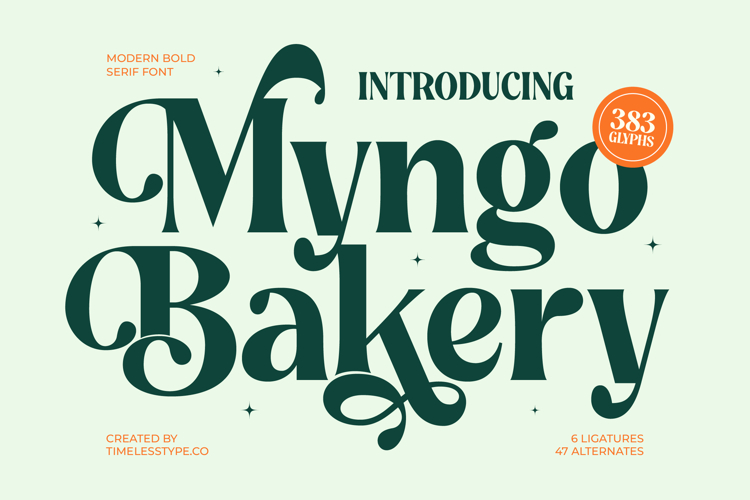
Myngo Bakery - Modern Bold Serif Font
Discover the definitive statement in modern typography with Font Myngo Bakery - Modern Bold Serif Font Serif Display, a typeface crafted to command attention and convey timeless elegance. This exquisite font blends classic serif structures with a contemporary, bold presence, offering a distinctive aesthetic that is both luxurious and approachable. Its high-contrast serif design ensures immediate visual distinction, making it an unparalleled choice for projects demanding an elevated touch.
Unleash creative potential with the rich feature set of Font Myngo Bakery - Modern Bold Serif Font Serif Display, including 383 glyphs, 6 unique ligatures, and 47 expressive alternates. These extensive OpenType features provide unparalleled design versatility, allowing you to tailor every headline and logotype to perfection. Its robust construction makes it ideal for creating impactful branding and captivating visual narratives.
Font Myngo Bakery - Modern Bold Serif Font Serif Display is your perfect partner for projects requiring refined glamour. It excels in applications such as luxury branding, high-end product packaging, sophisticated editorial design, and exclusive invitations. This font imbues every design with a sense of quality and prestige, elevating your brand identity and ensuring a premium aesthetic.
With its extensive multilingual support, Font Myngo Bakery - Modern Bold Serif Font Serif Display adapts seamlessly across global markets, making it incredibly versatile for international projects. Elevate your professional typography and ensure your message makes an unforgettable impression worldwide. Choose Font Myngo Bakery - Modern Bold Serif Font Serif Display to infuse your designs with unmatched elegance and appeal.